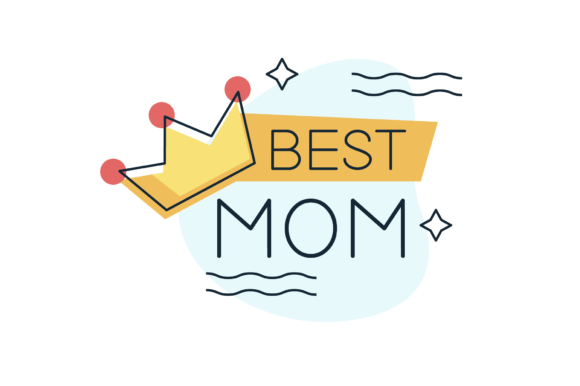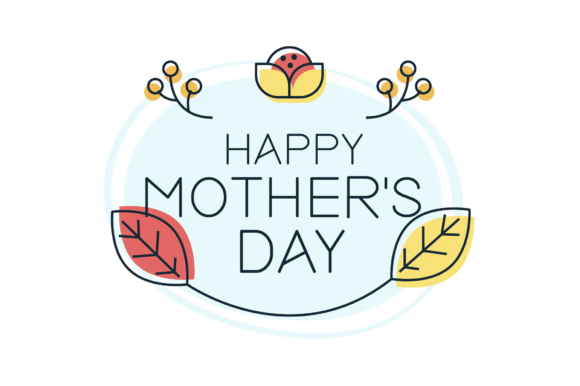
Introduction to Mamma Font
Mamma is a brand new modern display font.
This beautiful font will appeal to a wide range of crafty ideas, from letterheads and titles, to stationery .
Mamma Font offers exceptional quality and versatility, making it a valuable addition to your design toolkit. Whether you’re creating for personal projects or commercial use, Mamma Font delivers professional results.